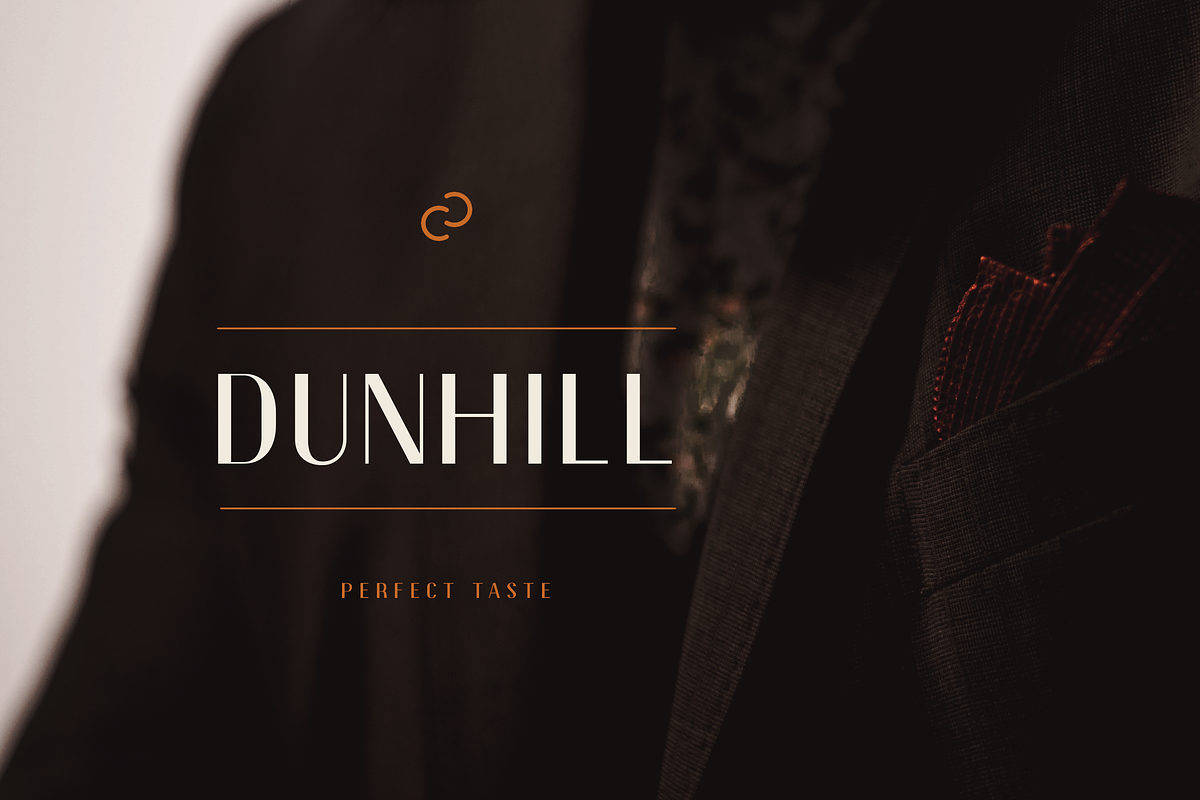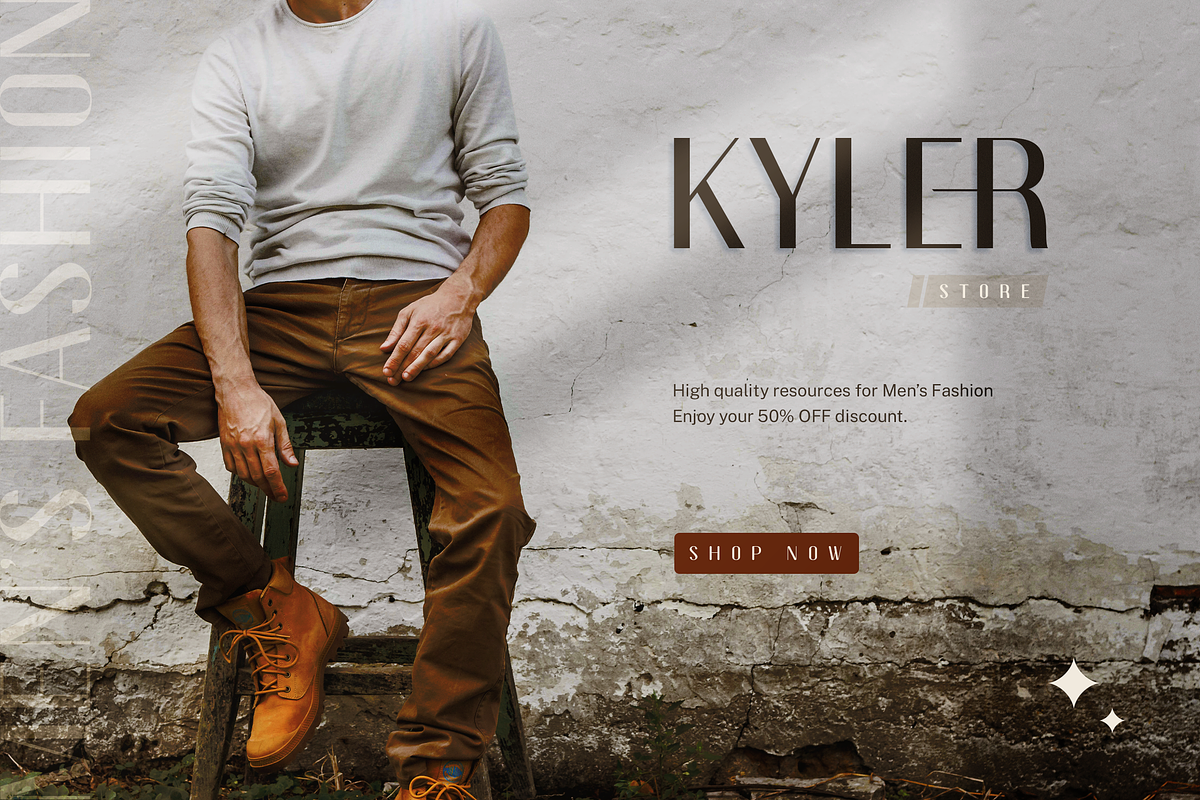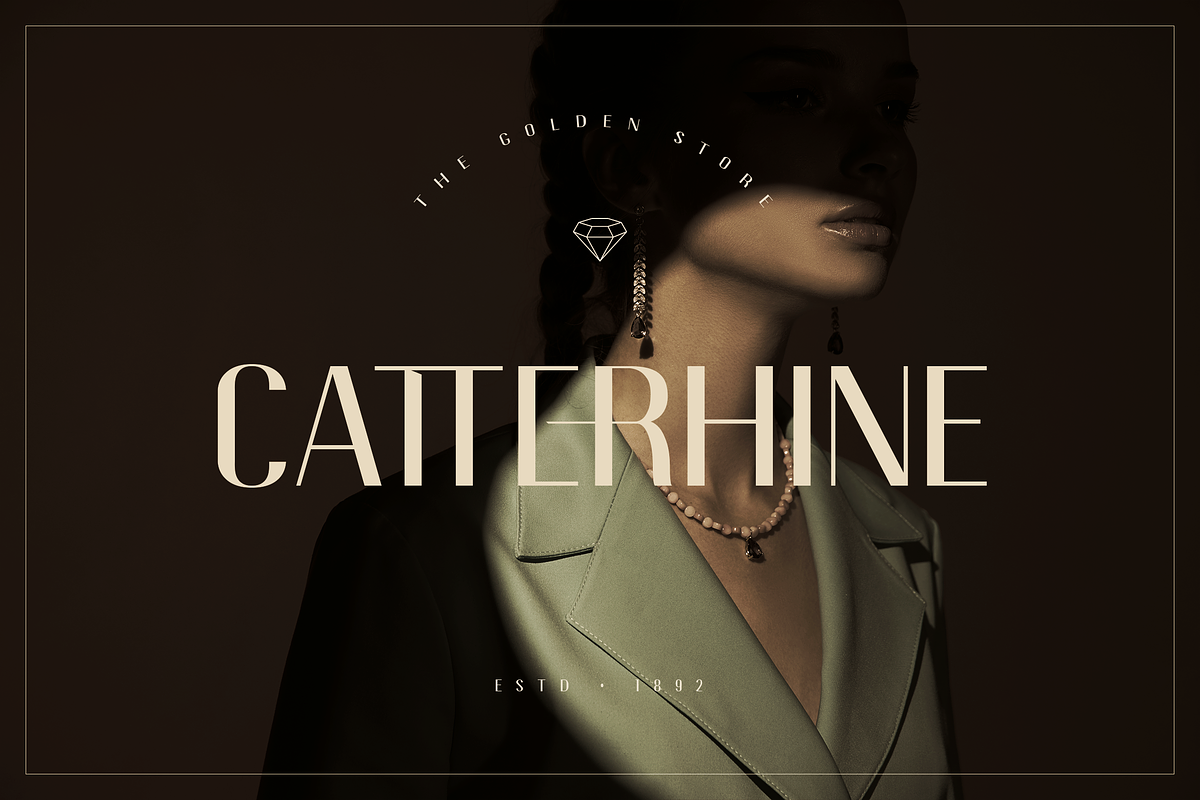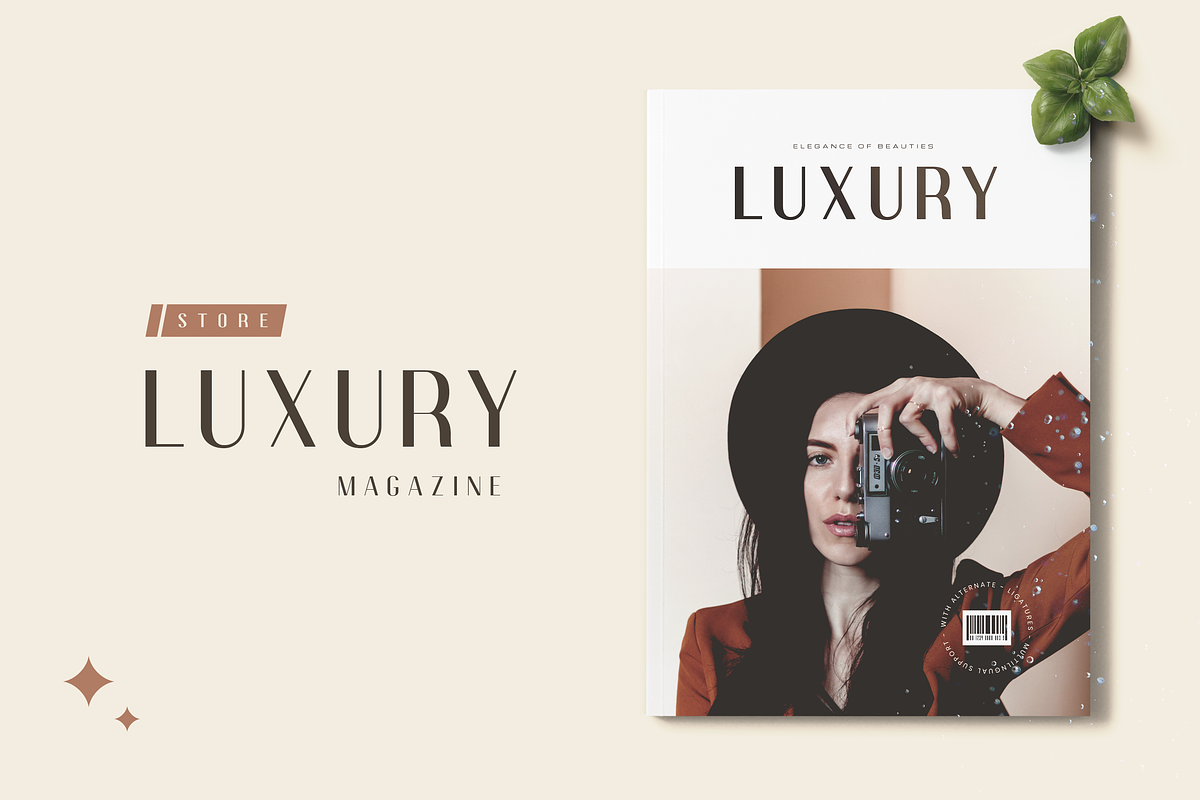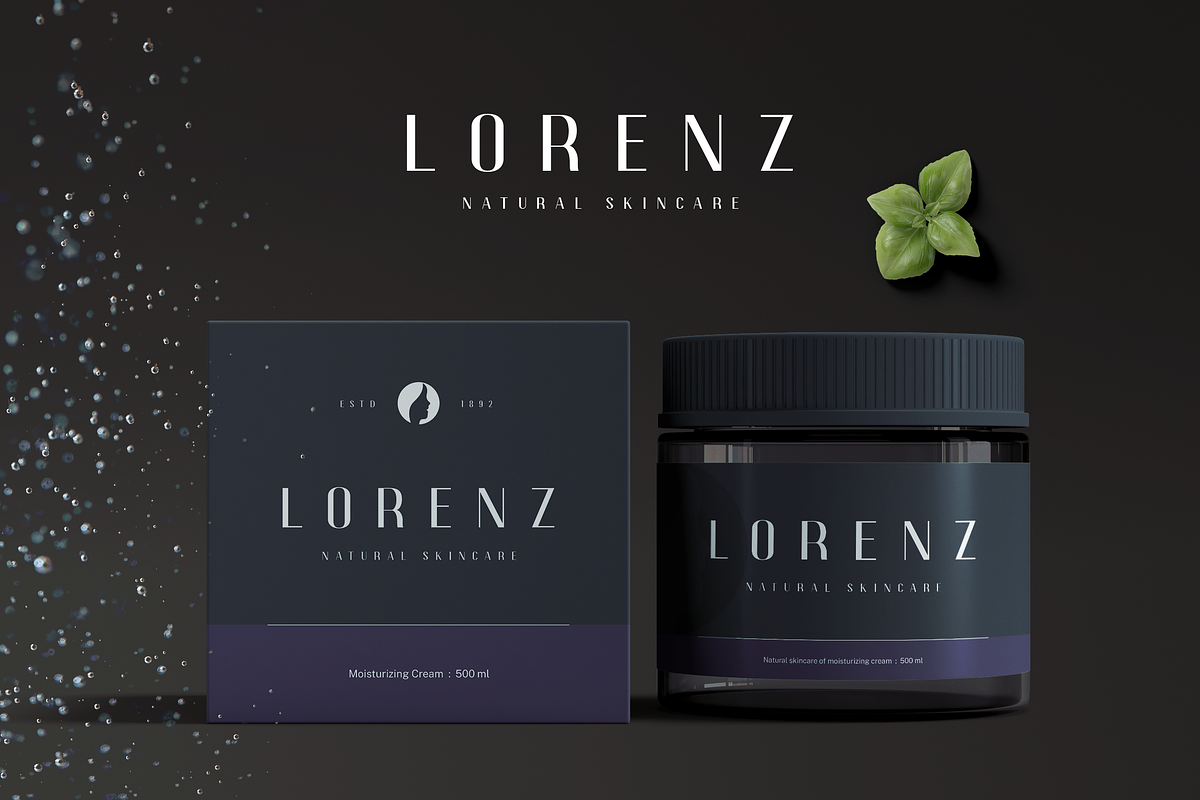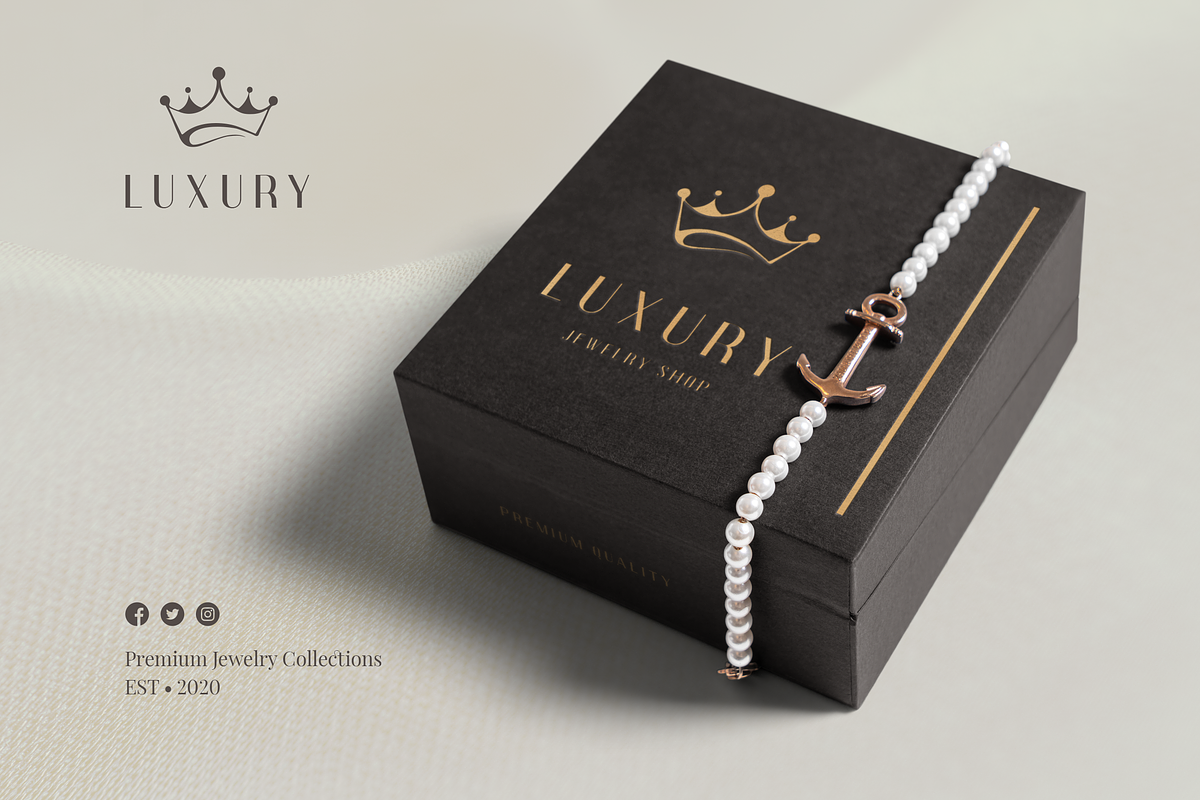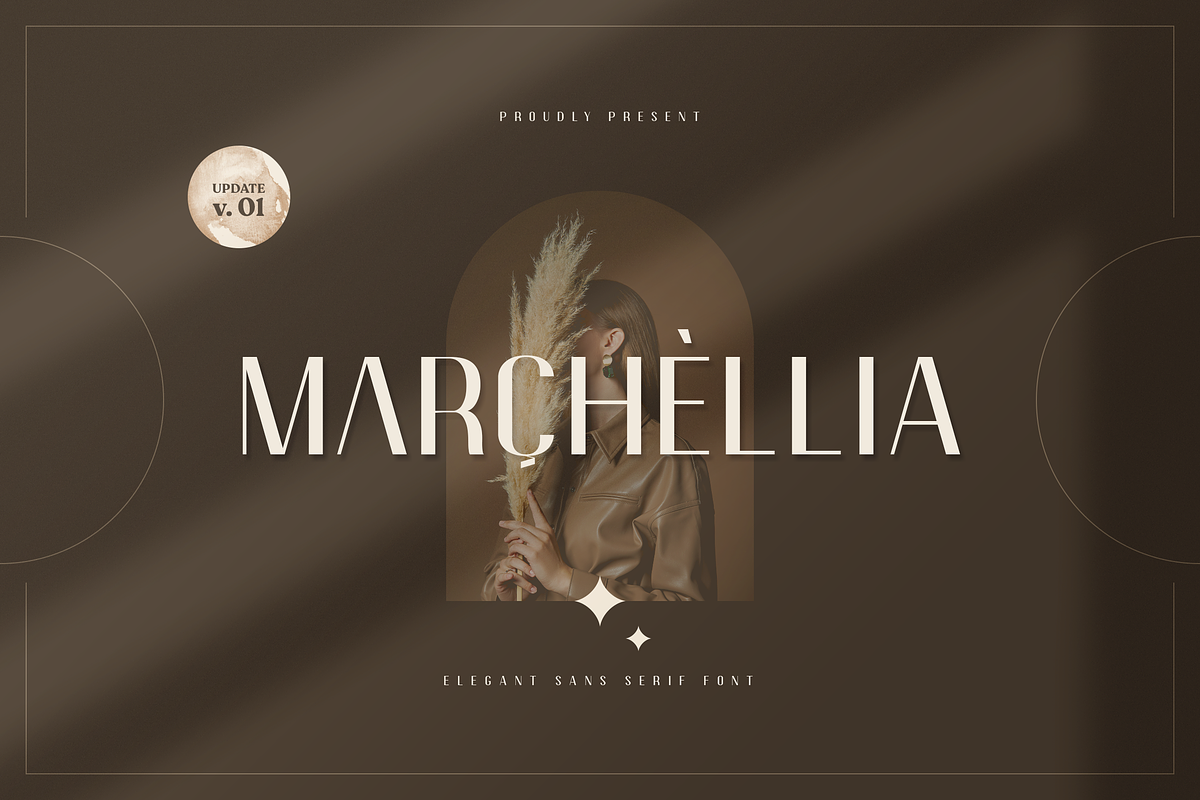
Marchellia Sans
Marchellia is modern serif font with luxurious style, available on 4 style to choose : Regular, Italic, Bold and Rounded. It’s perfect for headlines, logos, quotes, packaging or magazine covers, editorial design, and many more project with suitable purpose to make your art/design project look pretty and trendy.